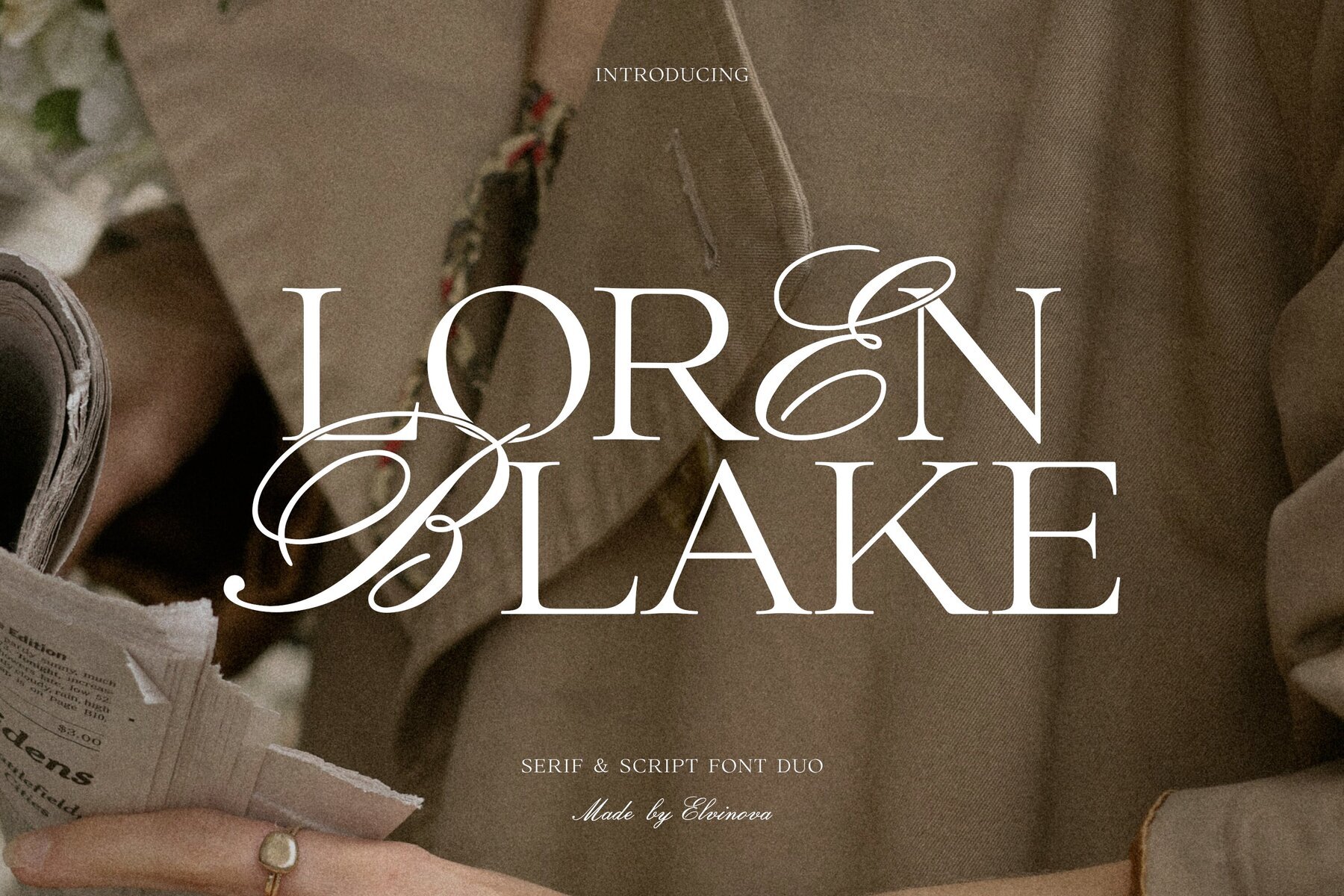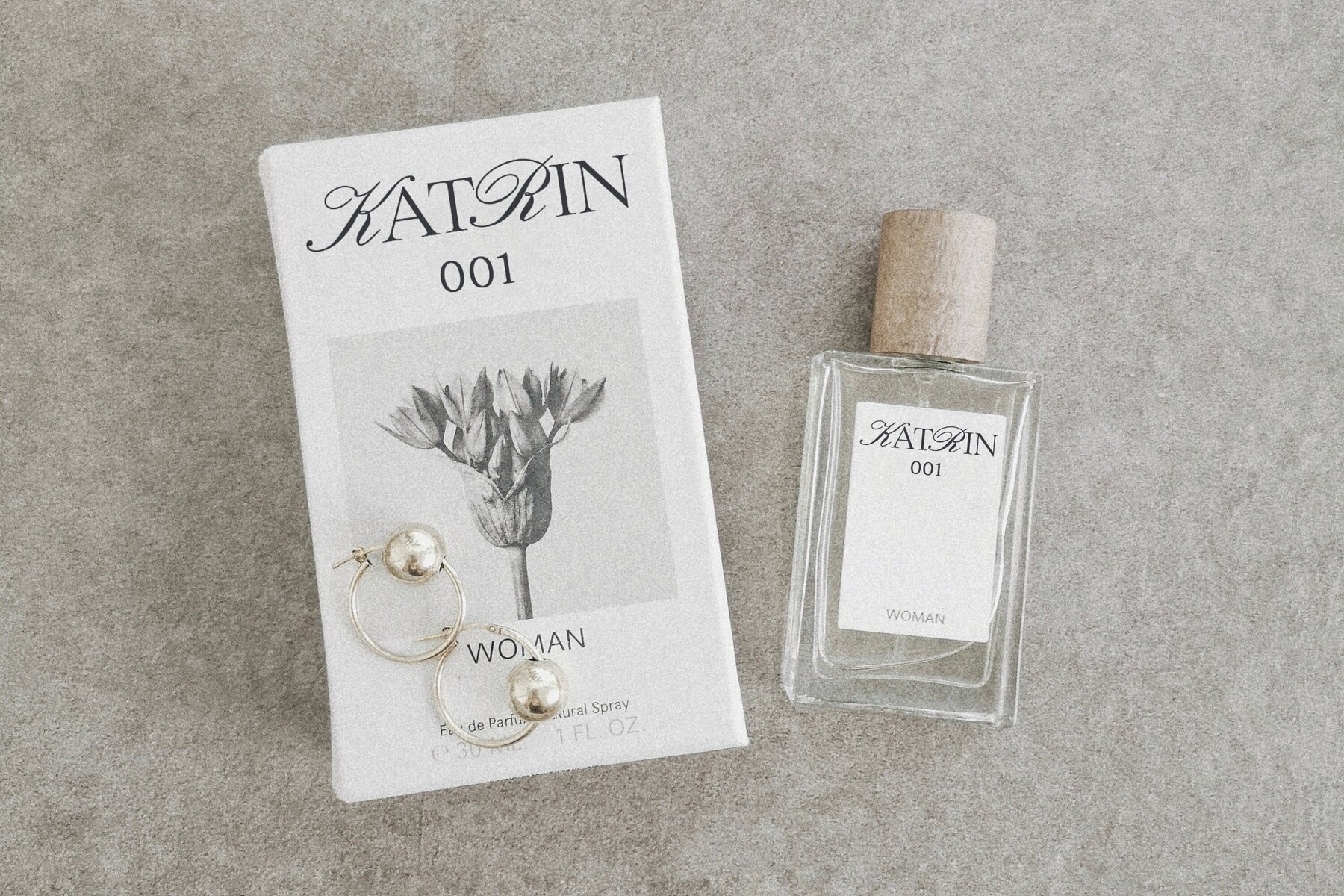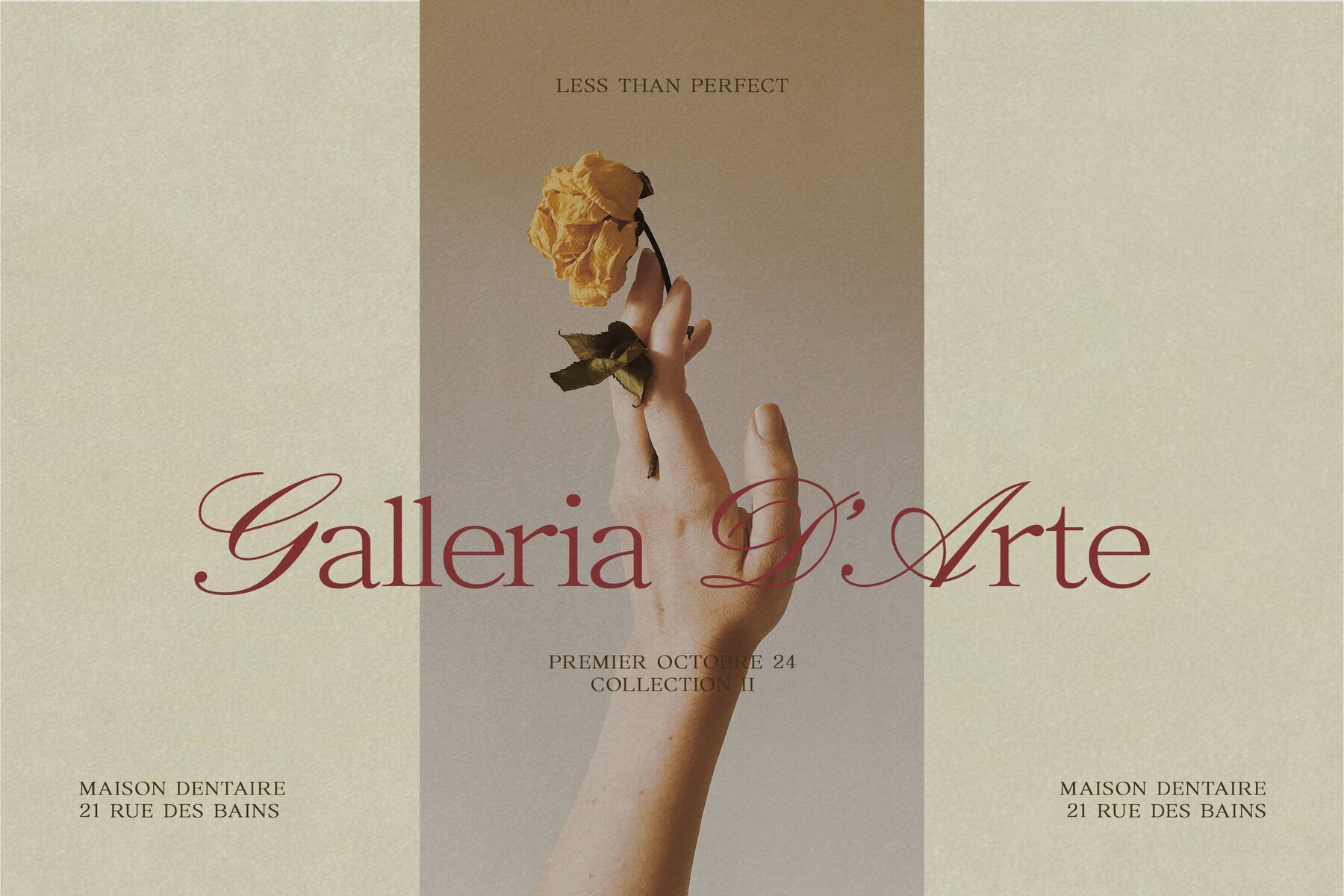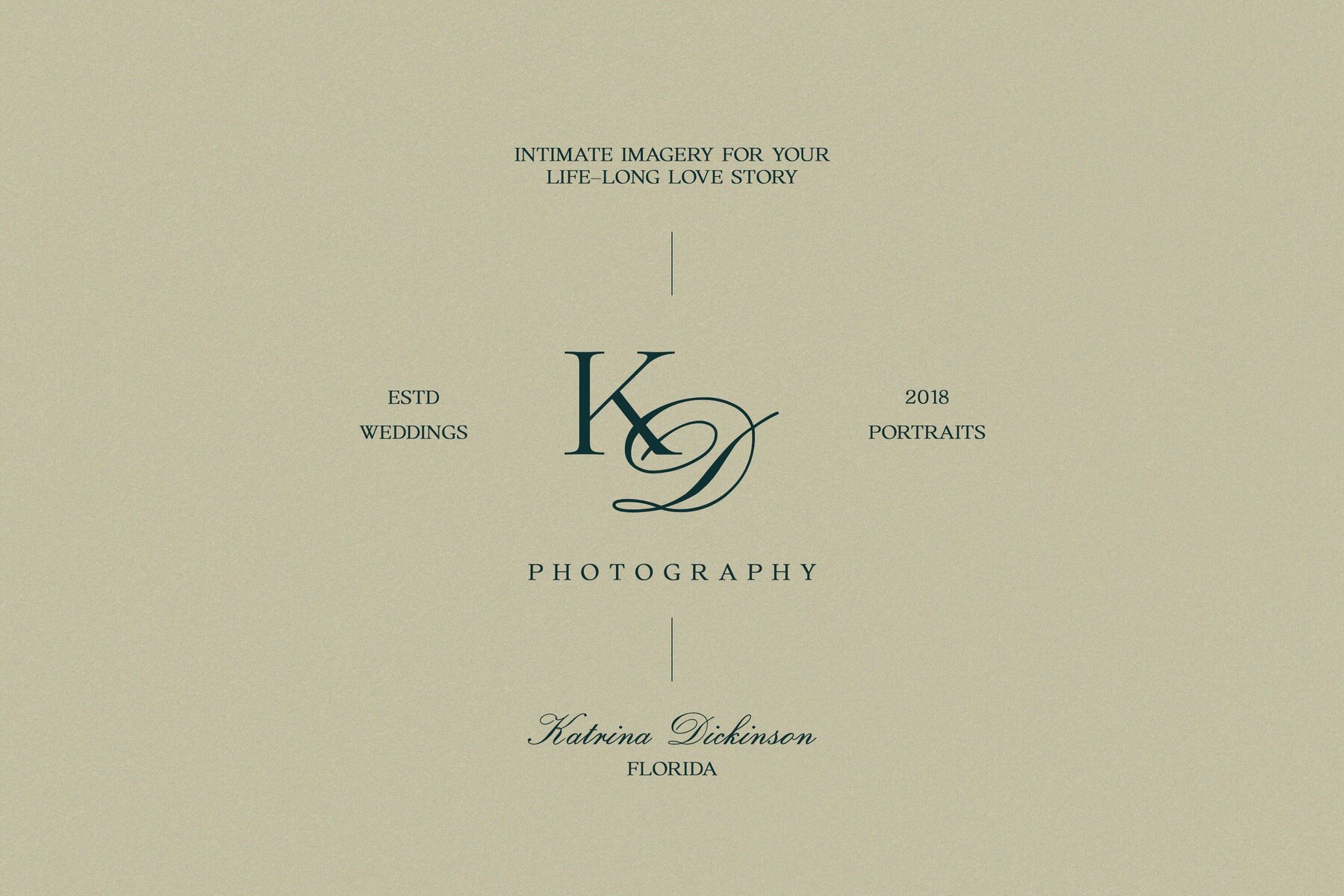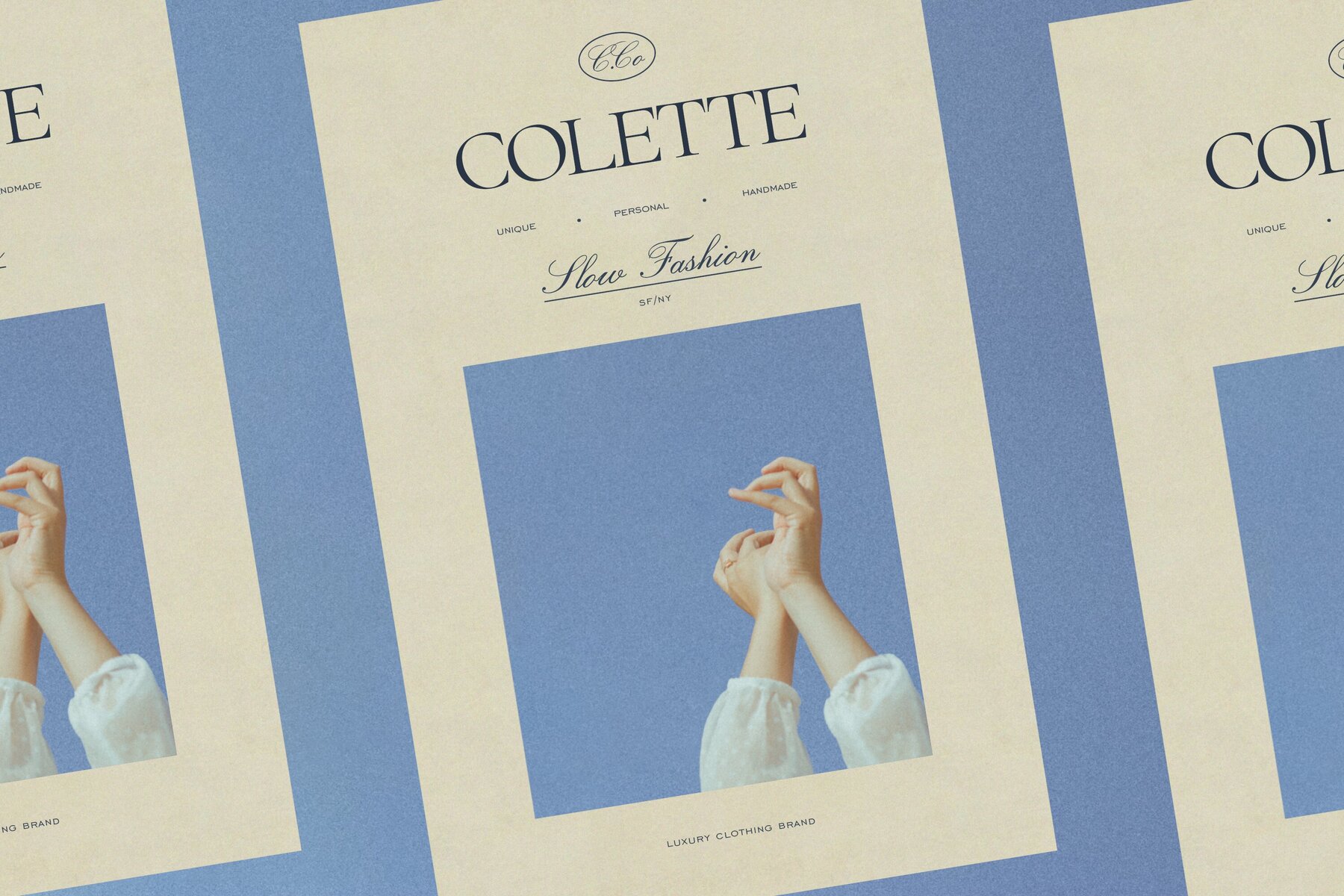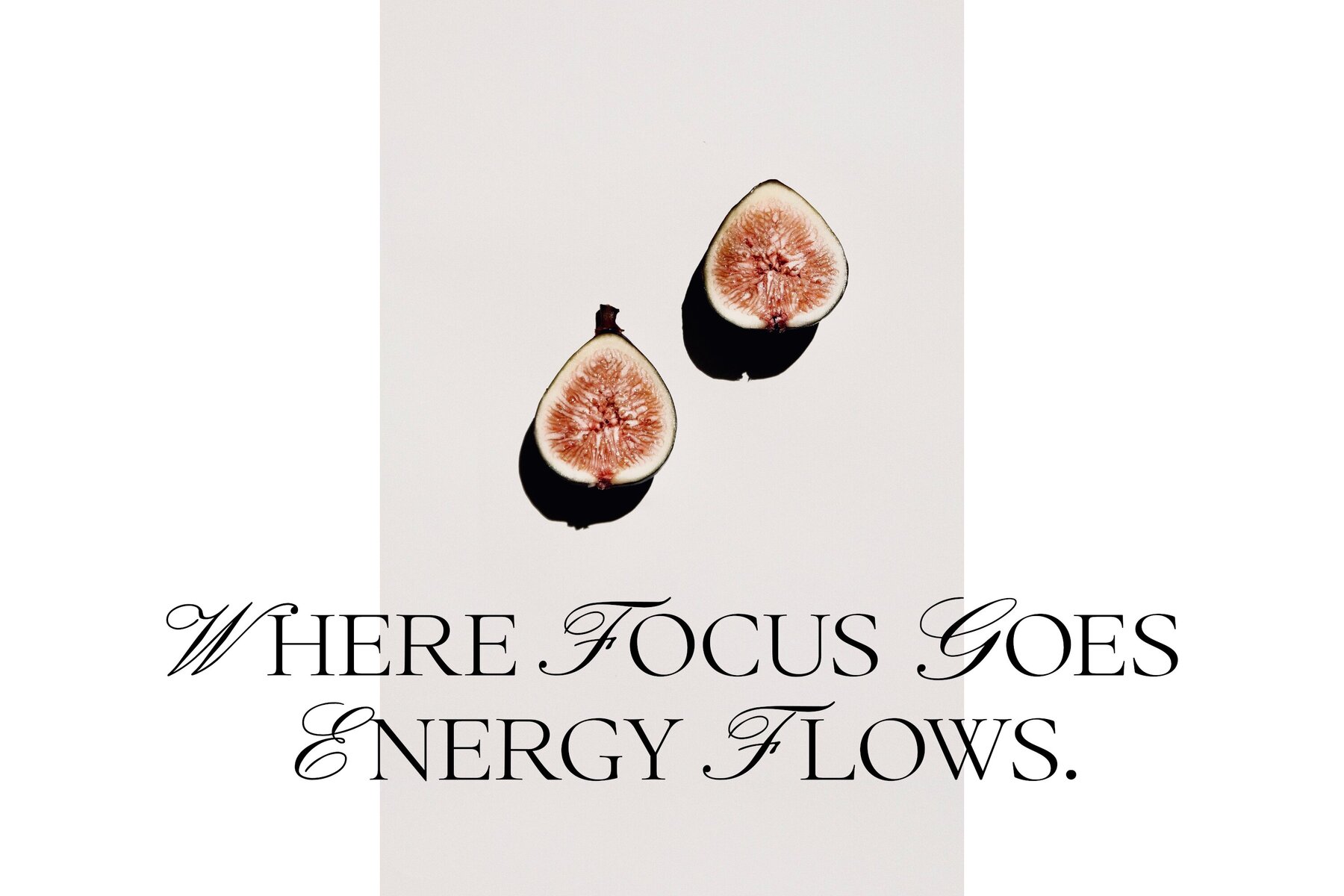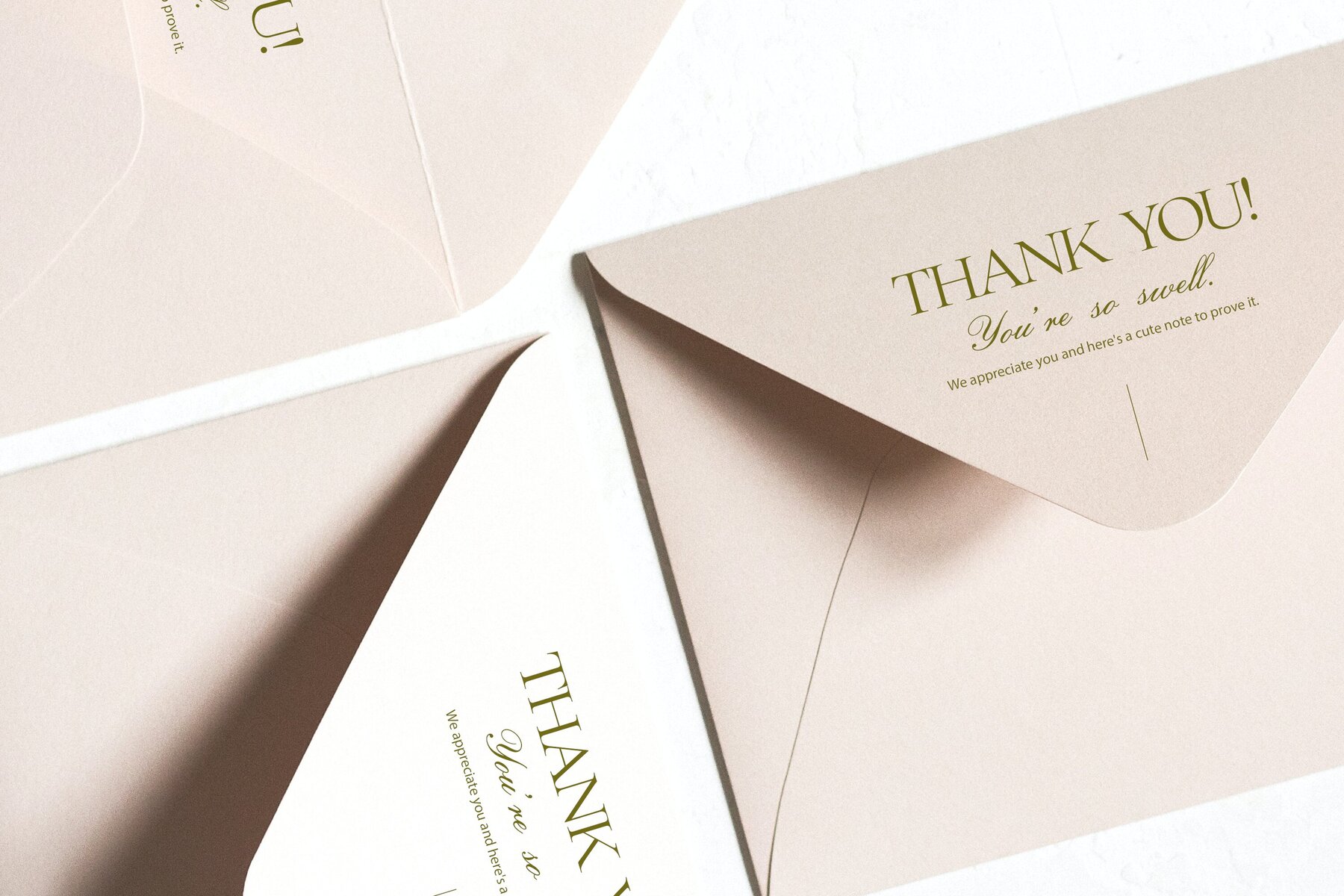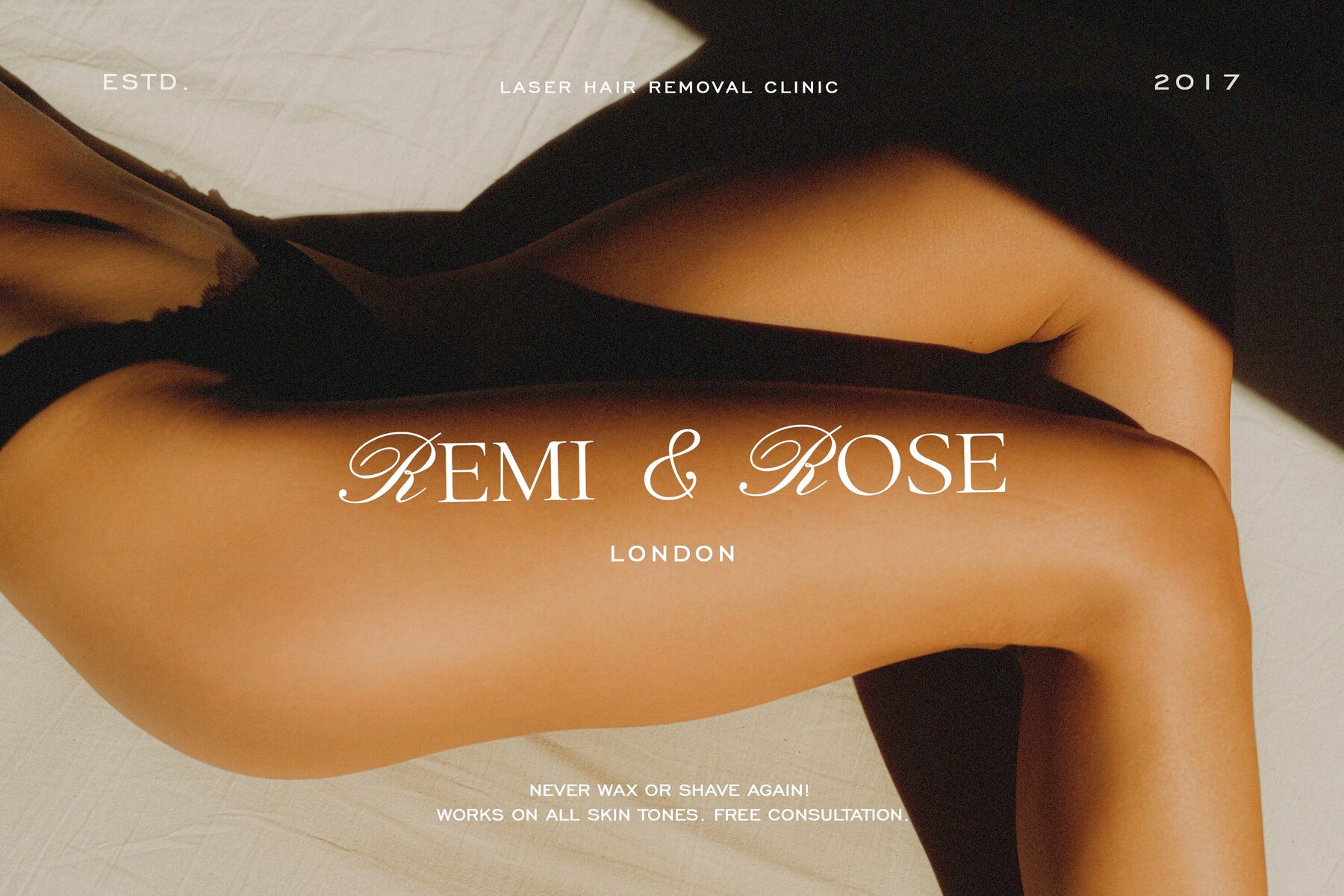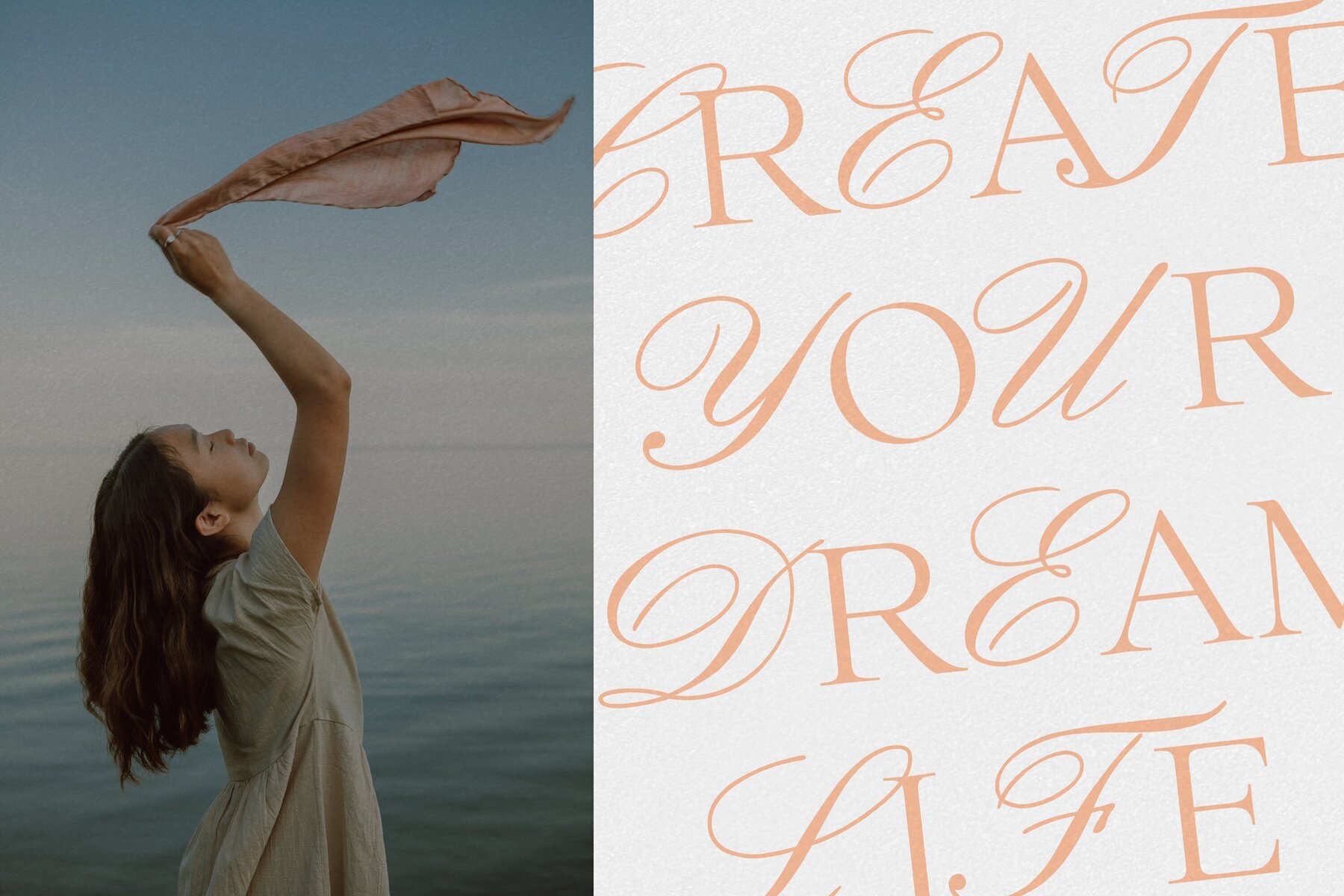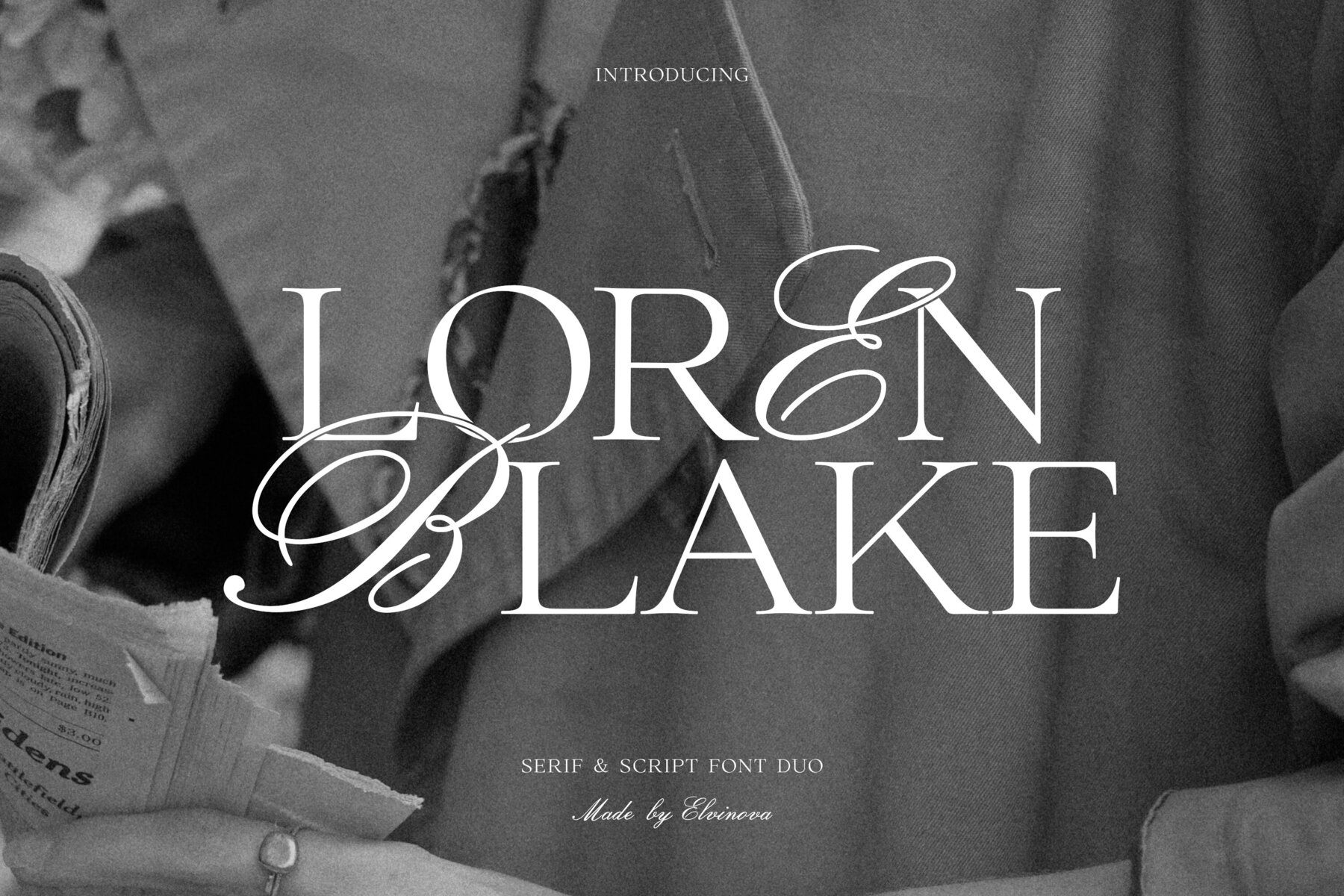
Loren Blake Font Duo
The Loren Blake Font Duo offers a sophisticated pairing of serif and script fonts designed to elevate your creative projects. This font combination brings a blend of classic and contemporary styles, making it ideal for a wide range of uses, from elegant branding to refined wedding invitations. Perfect for enhancing titles, branding projects, wedding invitations, packaging designs, and web design. Adjust the letter spacing to add an extra layer of sophistication to your work.Loren Blake: Elegant Serif and Script Font Duo